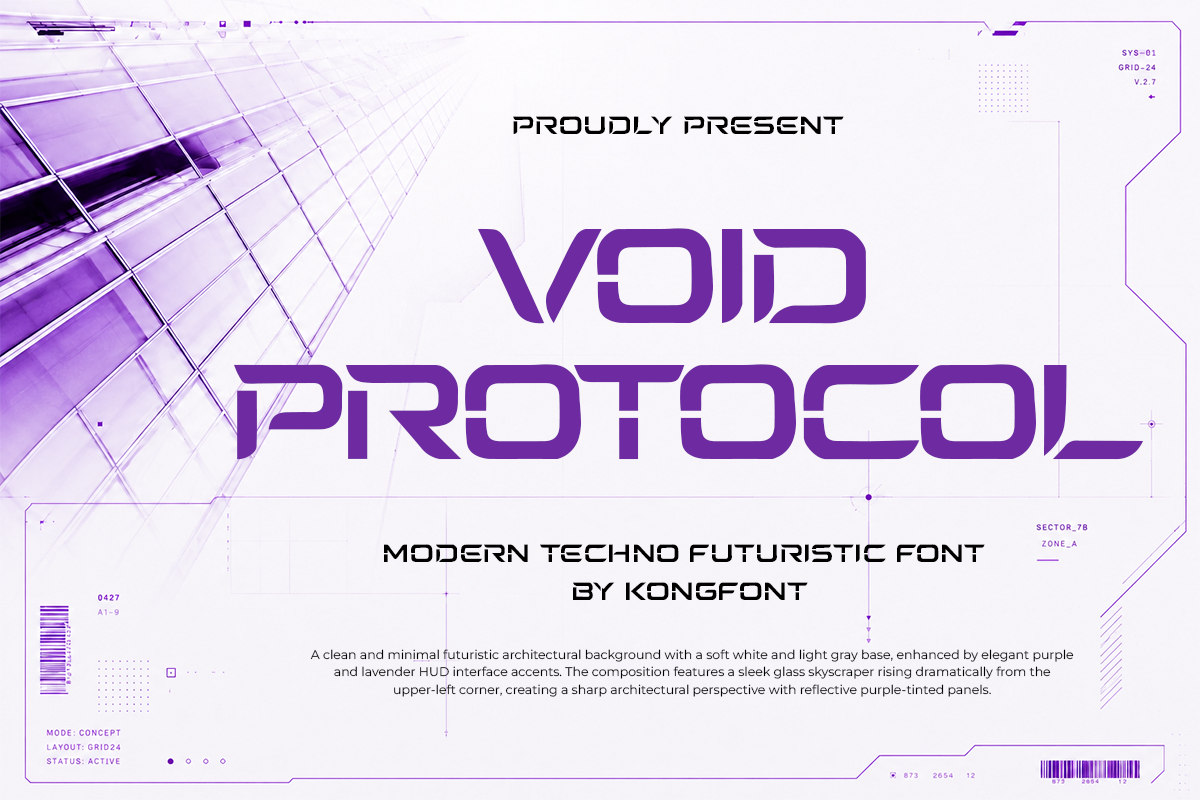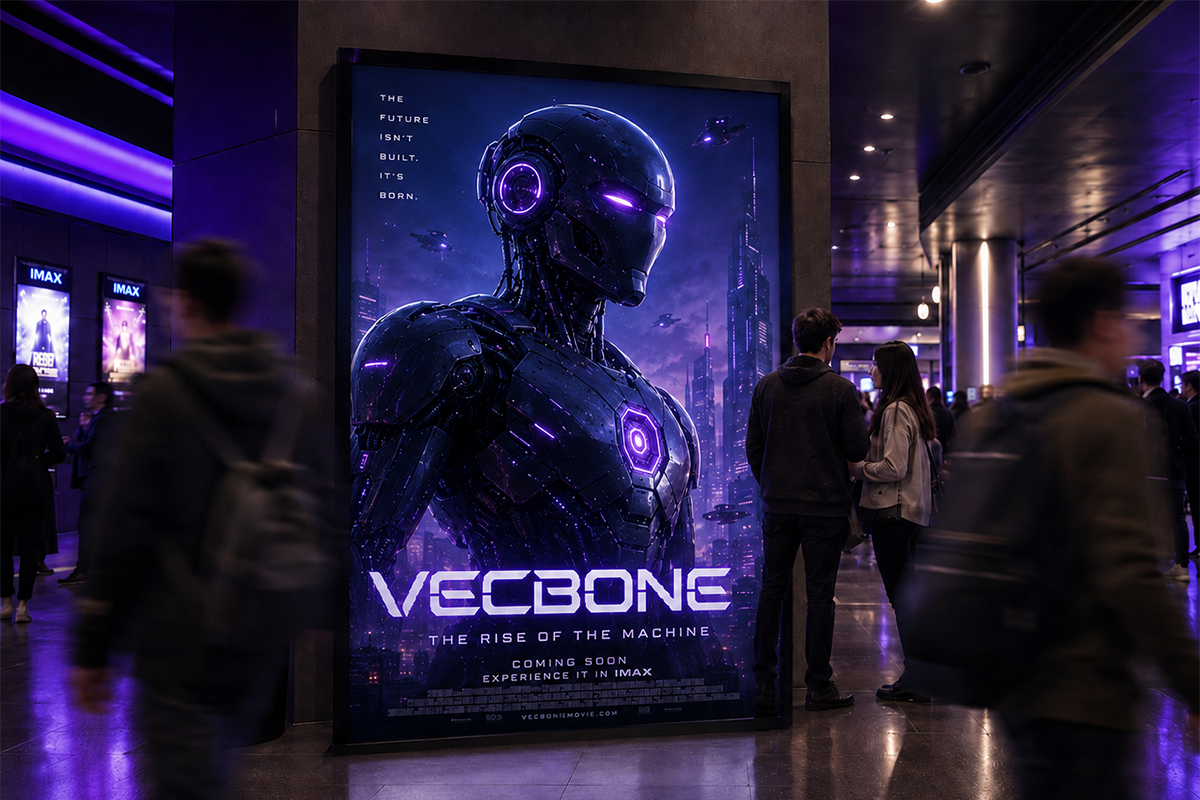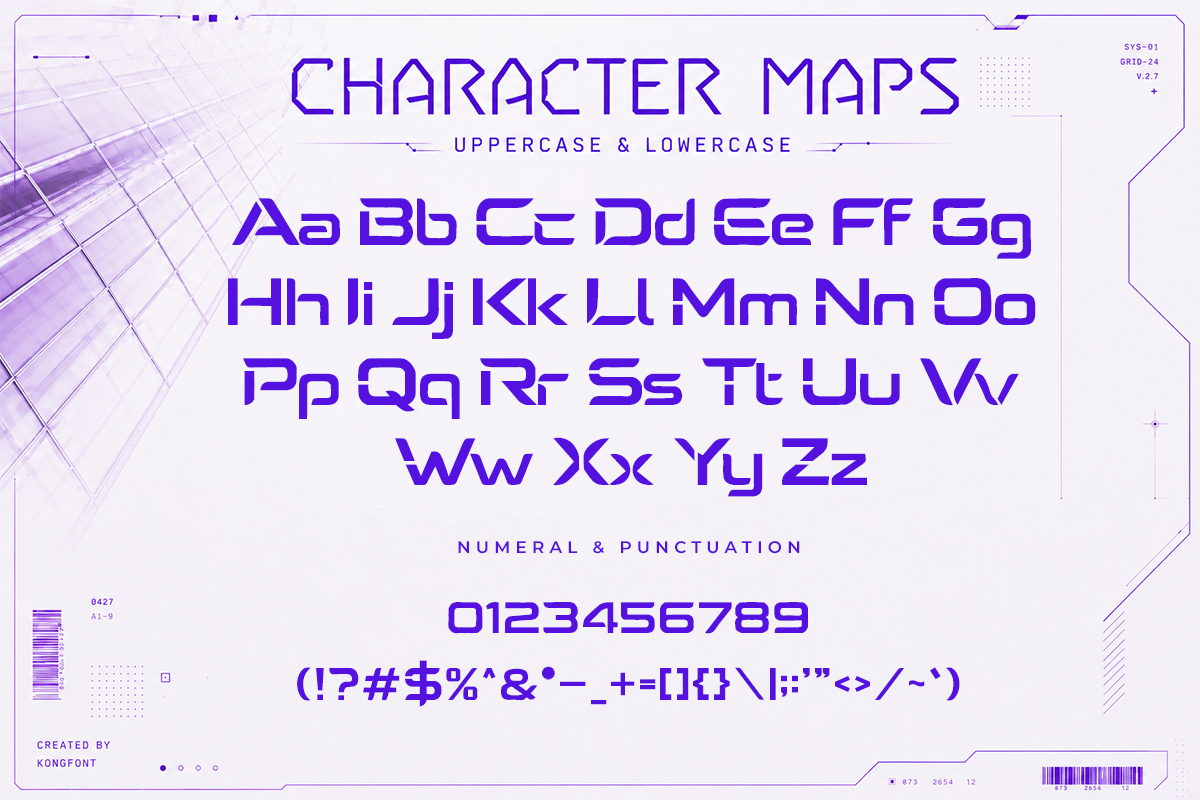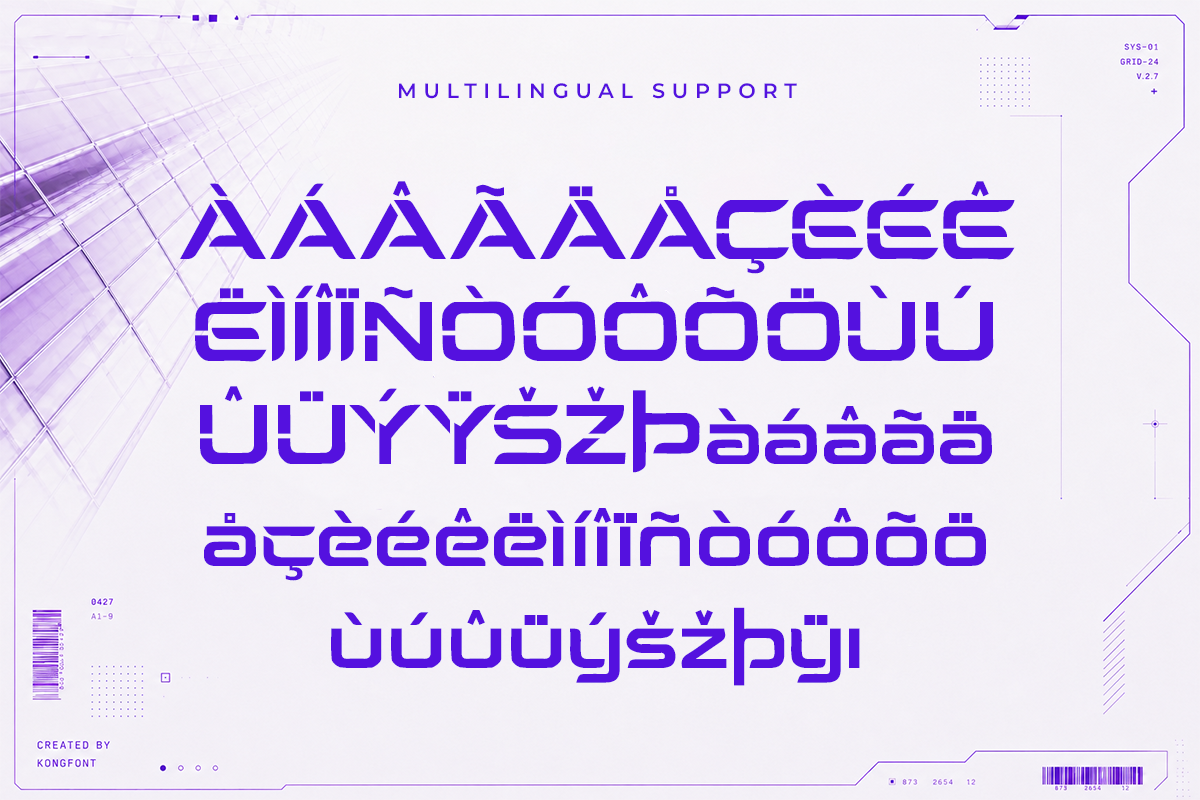
Void Protocol A Modern Techno Futuristic Font is a modern futuristic display font built with sharp geometry, streamlined forms, and a strong technological identity. Its wide proportions, angular cuts, and distinctive sci-fi details create a bold visual language that feels engineered for the future.
Designed to deliver a sense of speed, precision, innovation, and digital sophistication, Void Protocol combines clean architectural structure with an experimental techno aesthetic. Its striking letterforms perform especially well in large headlines, logos, titles, and high-impact visual compositions.
Void Protocol is ideal for technology branding, gaming titles, esports graphics, sci-fi posters, futuristic interfaces, automotive projects, electronics, software branding, cyber-themed artwork, movie titles, music covers, and digital campaigns.